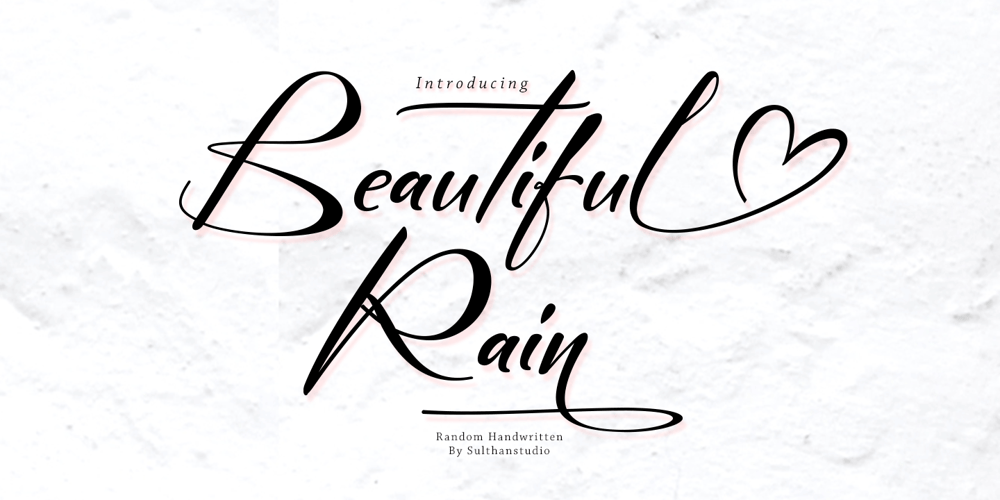
Beautiful rain Font Family was designed by Nasrullah and published by Sulthan Studio. Beautiful rain contains 1 styles and family package options. Beautiful rainmade in the rainy seasonI made an irregular handwritten font at will with beautiful and attractive results full of love and affection in it, making this font very attractive to use in your photos with two words that go hand in hand or also to connect your own name or partner’s name because Having a swash heart that can be connected is very suitable for use on greeting cards, wedding invitations, magazines, logos, clothes, stickers, and many more.